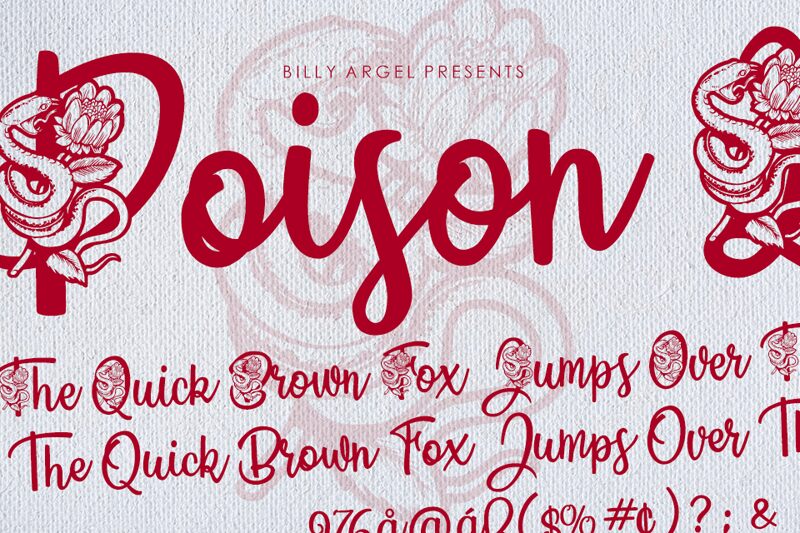
Poison Love by Billy Argel Fonts is a captivating display font that adds a touch of mystery and intrigue to any project. With its decorative style, this typeface is perfect for creating eye-catching designs such as book covers, posters, or packaging for products with dark or edgy themes. Its unique curves and sharp edges make it suitable for both digital and print media. Poison Love comes in various font styles including semi-bold and italic, allowing designers to experiment with different weights for emphasis. Unleash your creativity with Poison Love and bring your projects to life with its alluring charm.